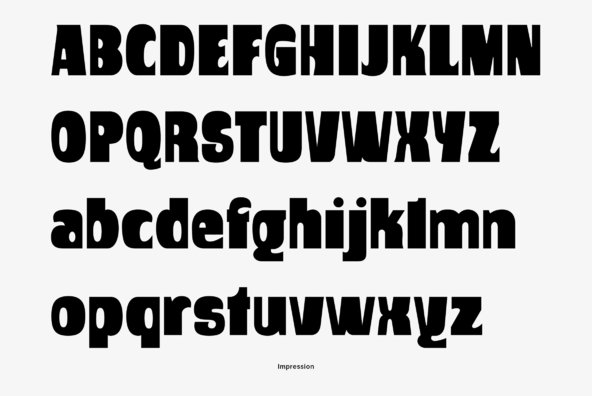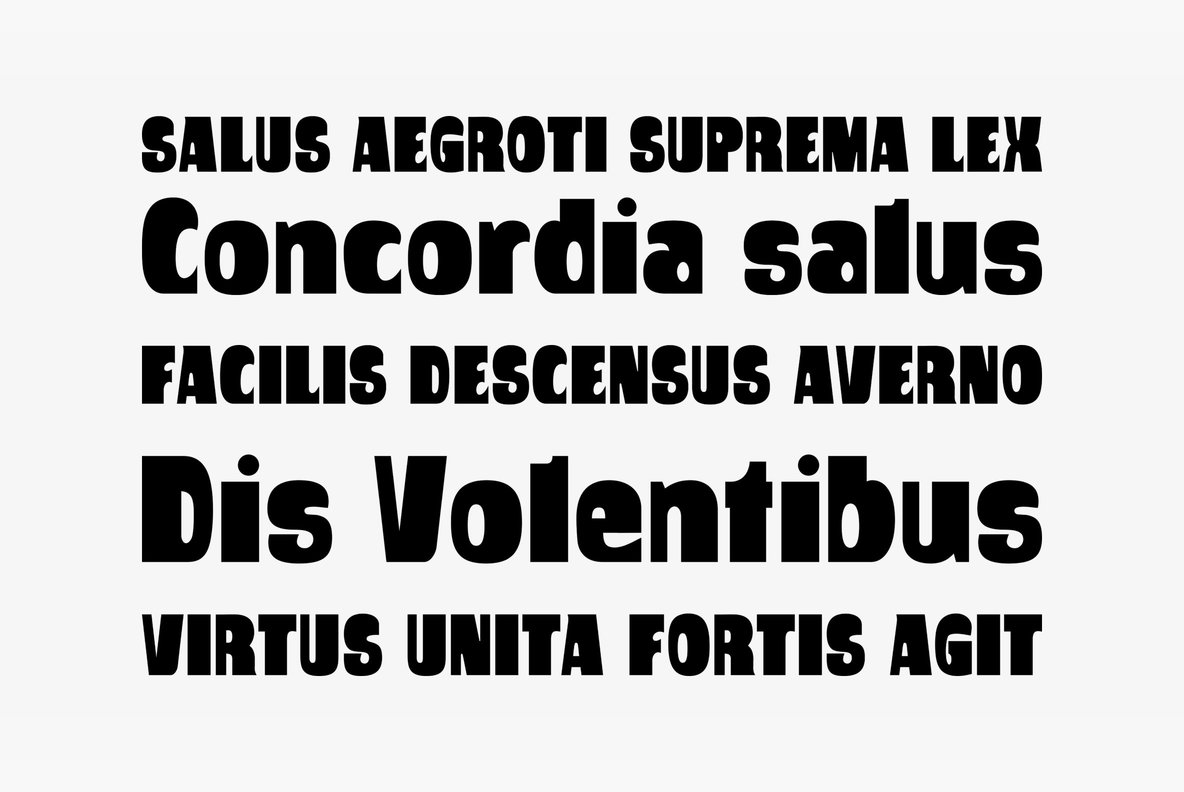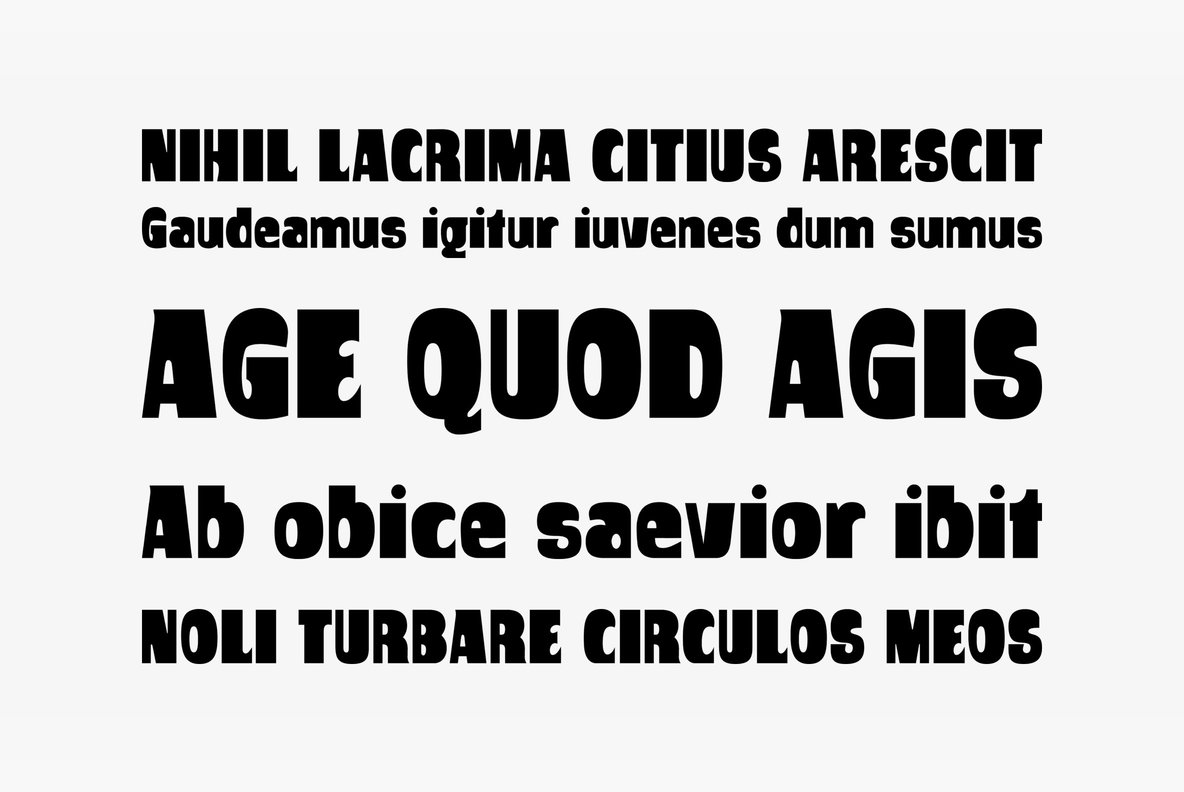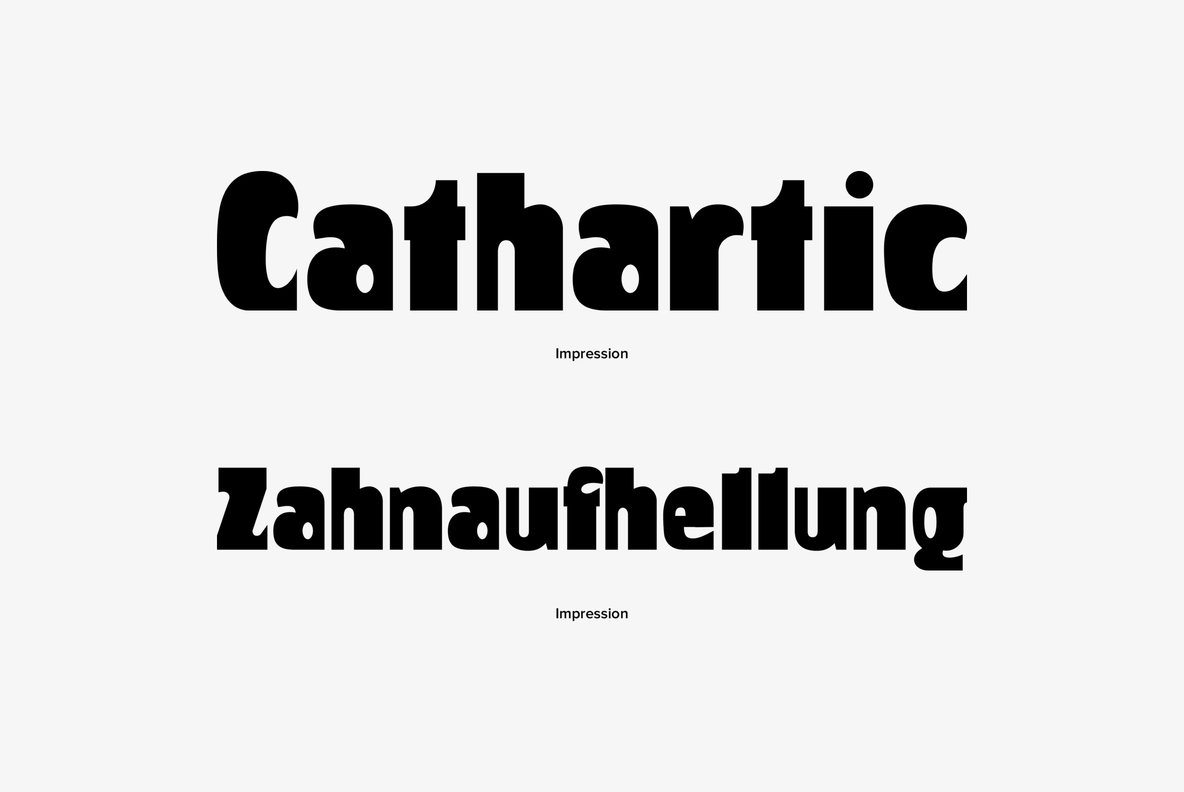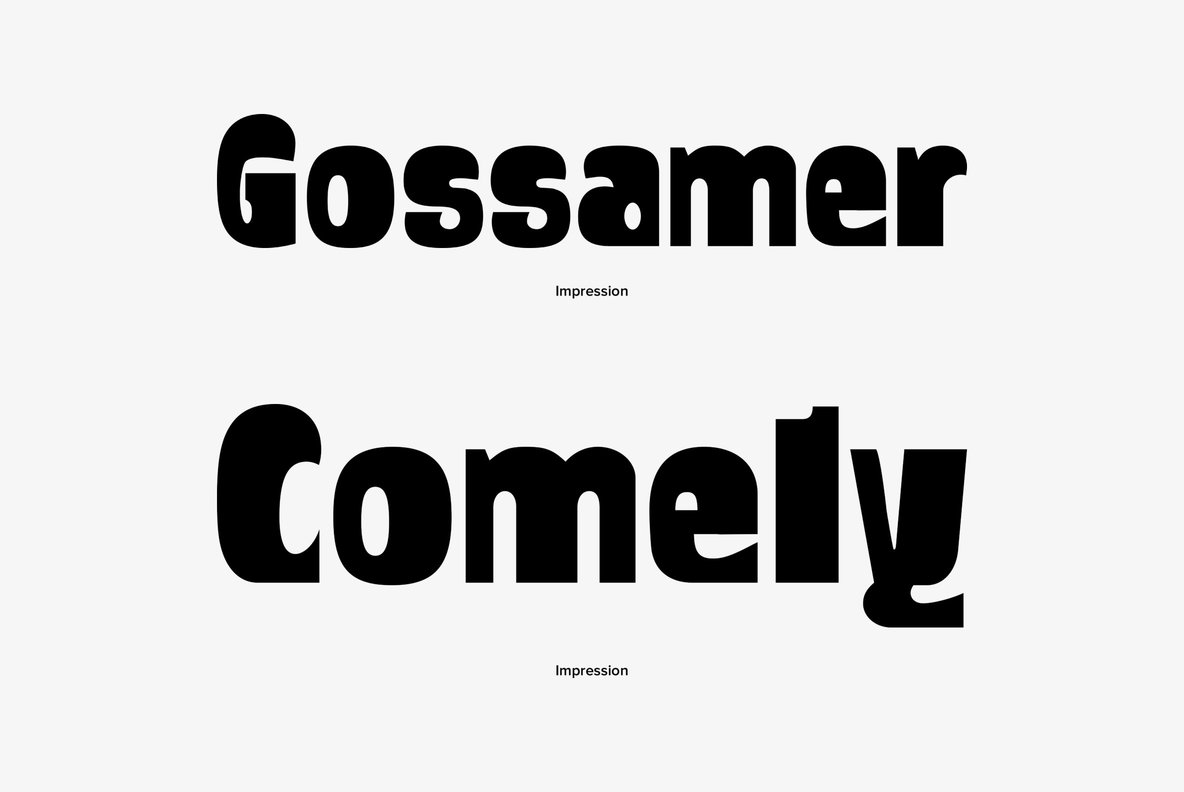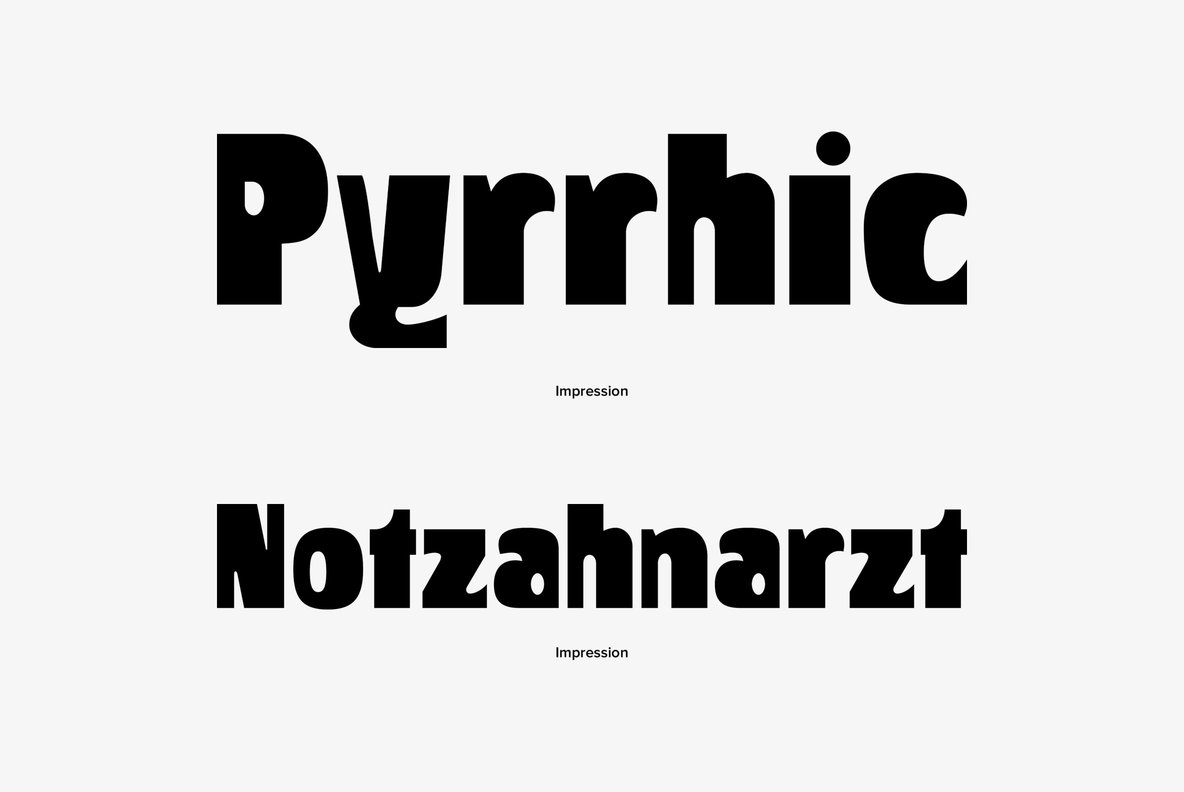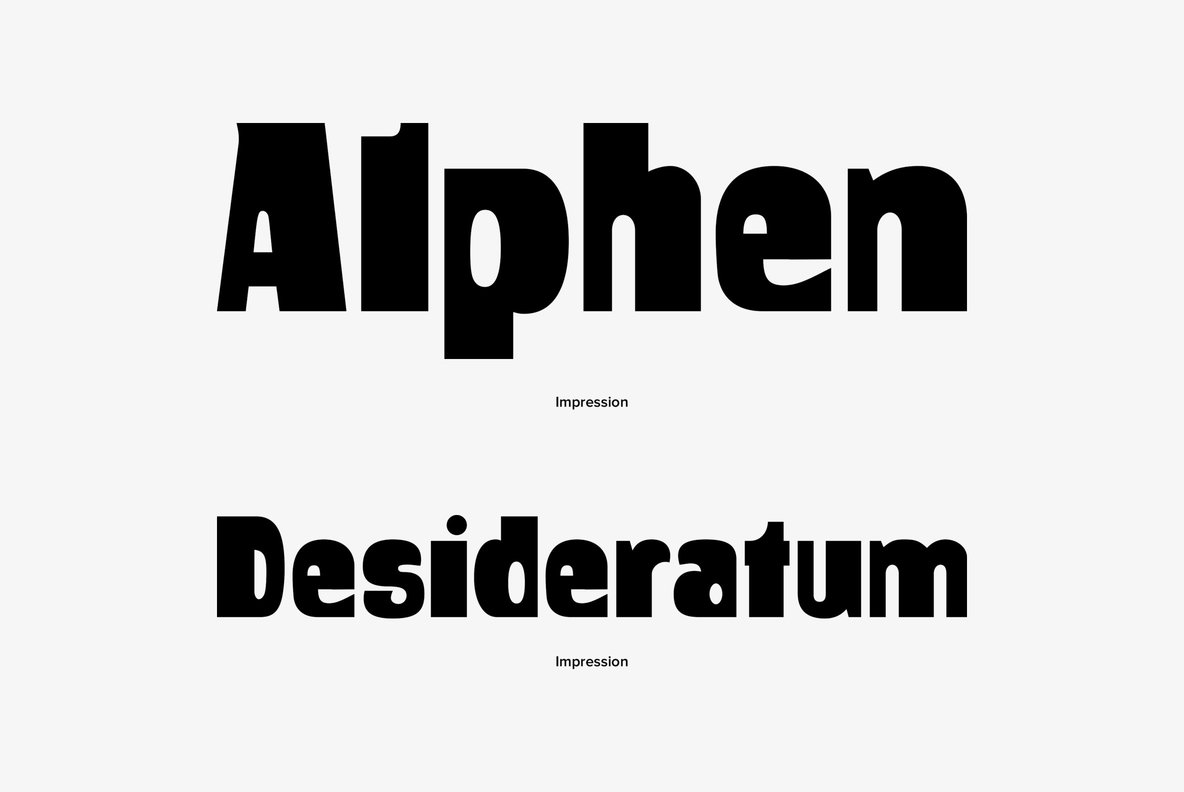
Impression is indeed quite impressive, art nouveau, hippy, flower power and groovy. Impression was redesigned and digitally remastered by German designer Ralph M. Unger for profonts.
Impression ist indeed quite impressive, art nouveau, hippy, flower power, groovy? Impression was redesigned and digitally remastered by German designer Ralph M. Unger for profonts. You want to have fun - take impression!